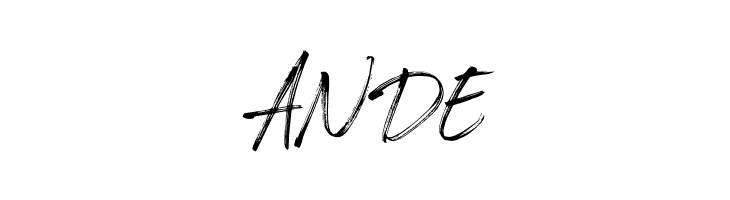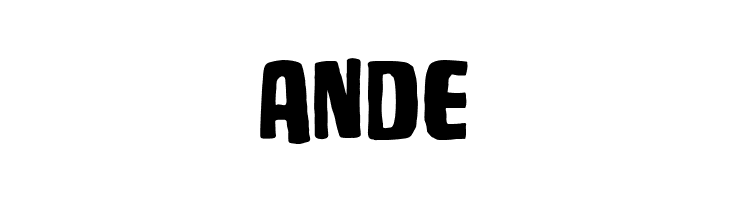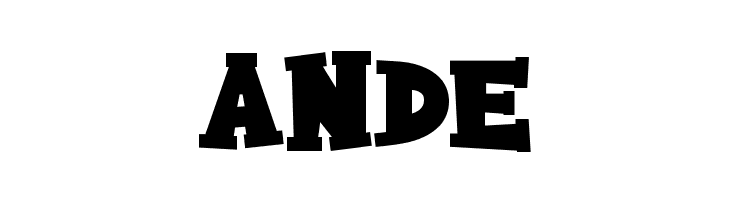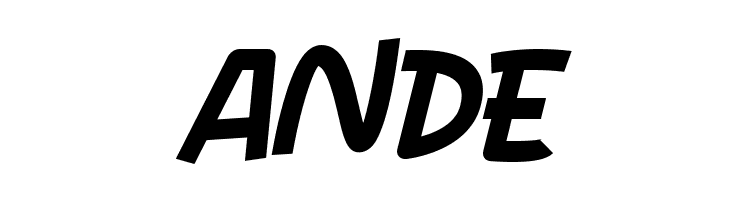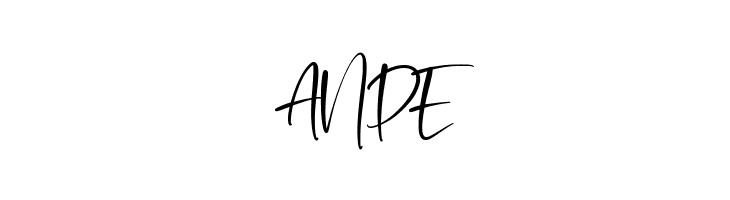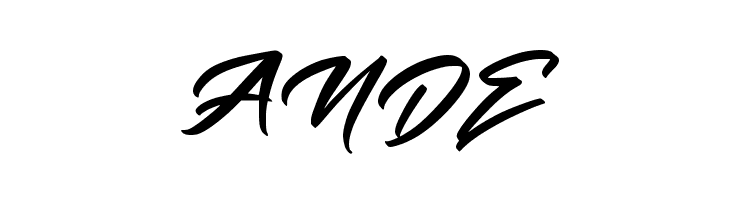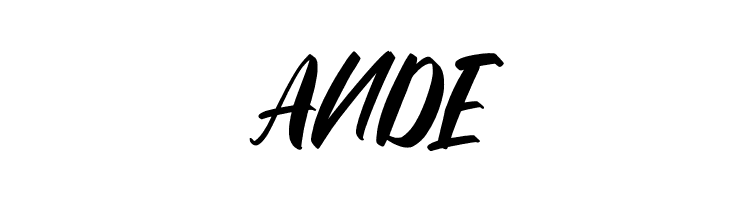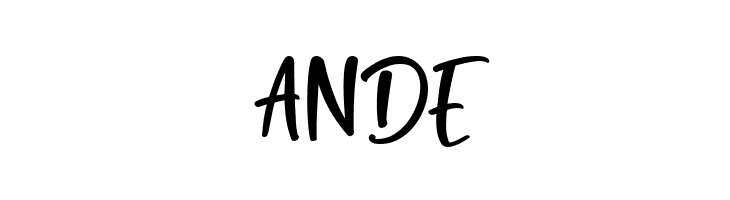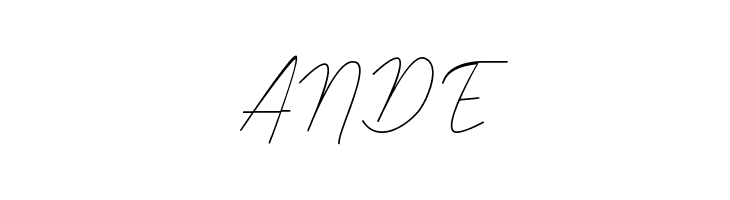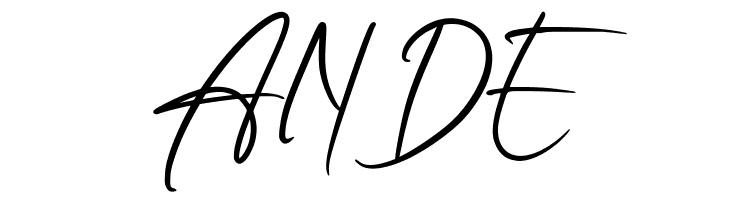
A bold, geometric font with a futuristic and industrial design.
A futuristic and geometric font with clean lines and symmetrical shapes.
A futuristic, italicized font with sleek, angular letters.
A graceful script font with flowing, connected strokes and elegant curves.
A bold, high-contrast serif font with sharp serifs and a dramatic style.
A bold, playful font with thick strokes and a cartoonish style.
A bold, modern font with a vintage touch, featuring thick strokes and a slightly condensed structure.
A bold, brush-style font with dynamic strokes and high contrast.
Bold, handwritten script font with a playful style.
A bold, playful handwritten font with energetic strokes and a lively appearance.
A bold, dynamic brush script font with expressive, hand-painted strokes.
A dynamic and fluid font with calligraphic swashes and elegant curves.
A bold, geometric font with a futuristic and dynamic style.
An elegant, flowing script font with a sophisticated cursive style.
A playful, casual handwritten font with smooth, flowing lines.
A dynamic, handwritten font with fluid, elongated strokes and a casual elegance.
A bold, playful font with thick, rounded strokes and a cartoonish style.
A dynamic handwritten font with fluid, cursive strokes and a personal touch.
A bold, rugged font with thick strokes and a hand-crafted appearance.
Handwritten cursive script font.
A playful, hand-drawn font with dynamic, irregular strokes.
A lively handwritten font with fluid, dynamic strokes and a playful, informal style.
A bold, playful font with a bubbly, cartoon-like appearance.
A bold, expressive script font with fluid, dynamic strokes.
A lively, handwritten font with fluid strokes and a playful, modern style.
A lively and dynamic handwritten font with fluid, flowing letterforms.
A bold, modern font with thick, uniform strokes for impactful designs.
A dynamic, fluid handwritten font with smooth, flowing strokes.
A bold, italic script font with a playful and dynamic style.
A bold, rugged font with a hand-carved, stone-like appearance.
A bold, brush-style font with dynamic and energetic strokes.
A lively and flowing script font with smooth, continuous strokes.
A modern, elegant font with bold uppercase letters and smooth lowercase characters.